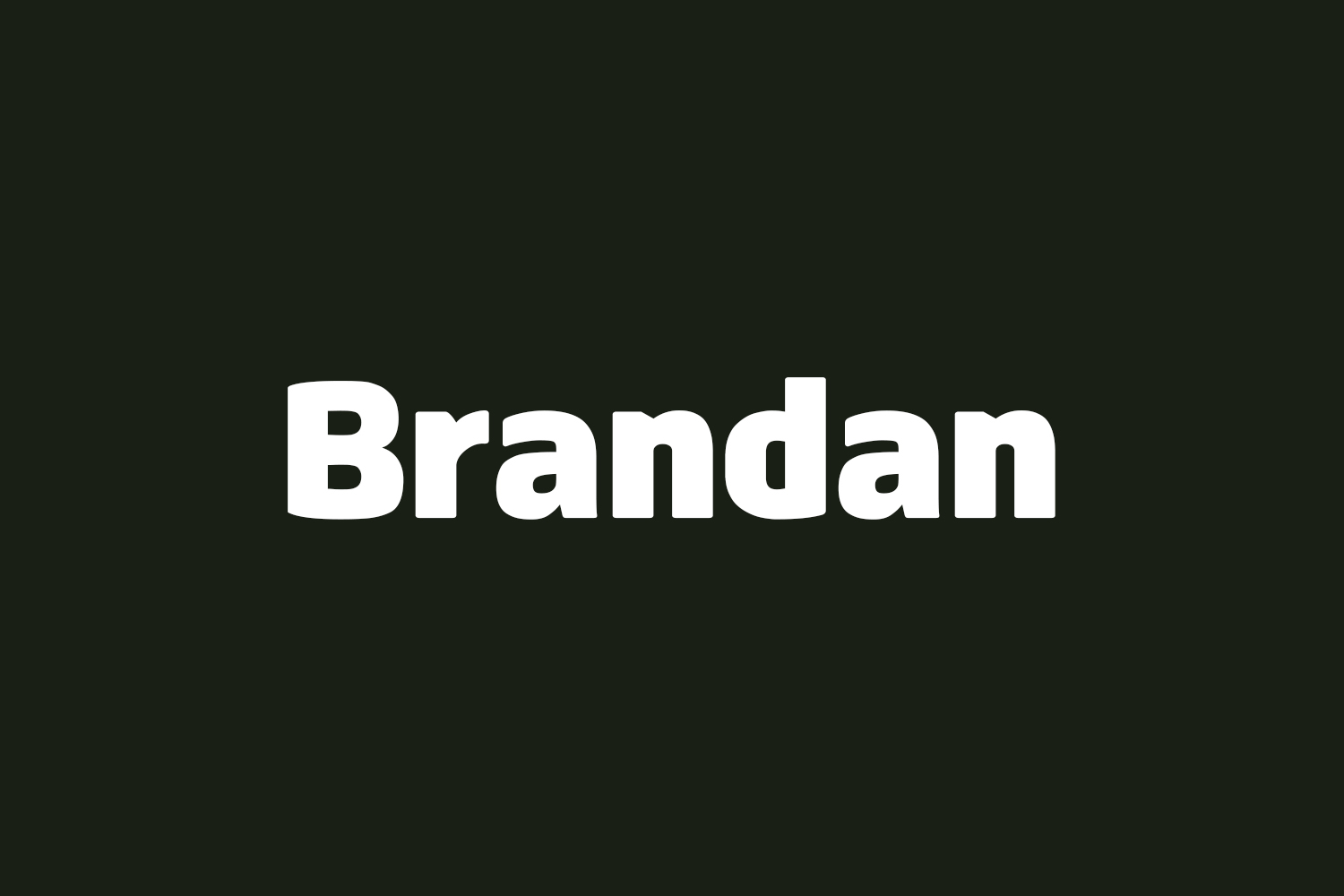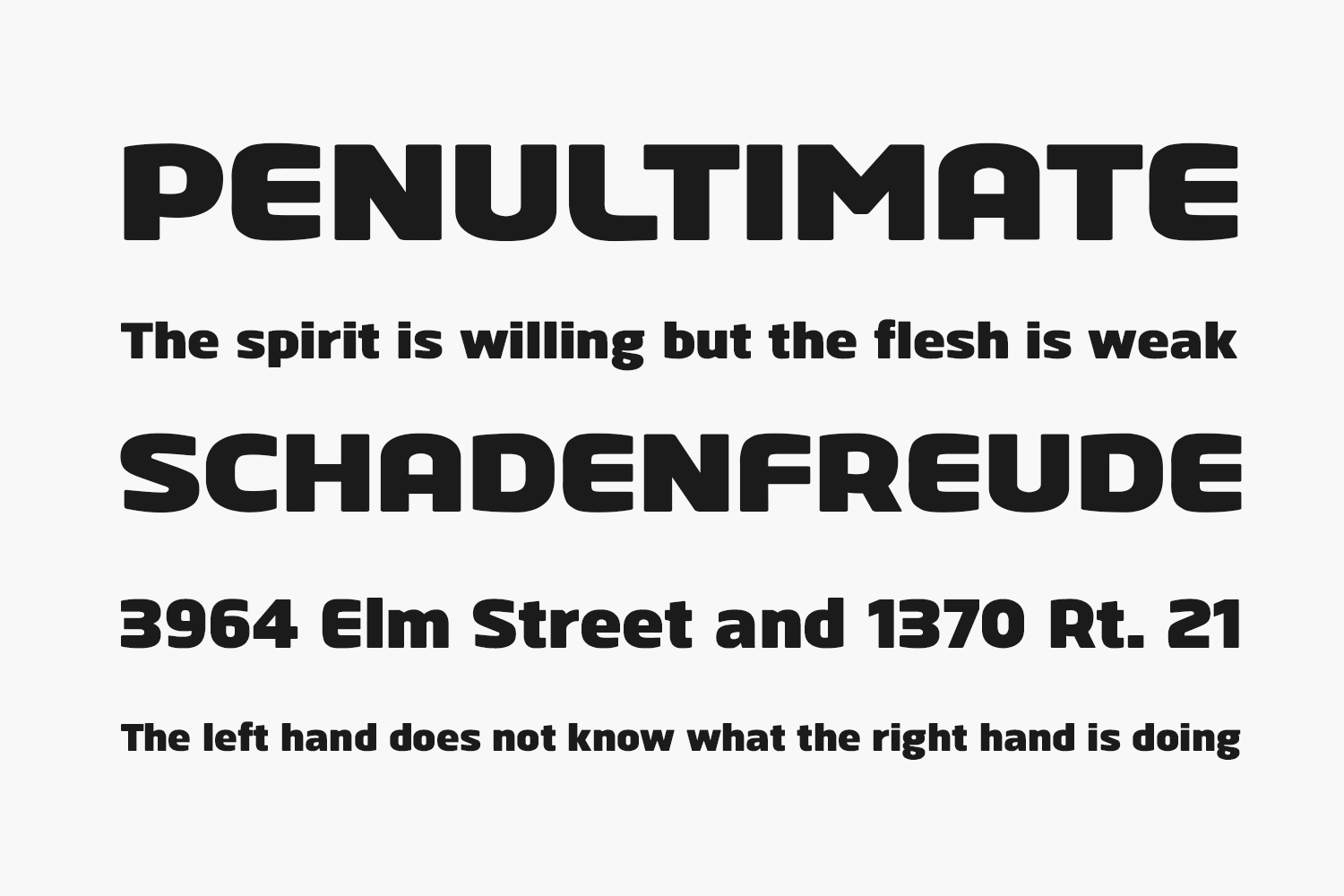
Brandan Free Font is a playful sans-serif typeface with two variations that make for unbeatable combinations. Use it with confidence in your creative endeavors and you will be thrilled with the outcome.